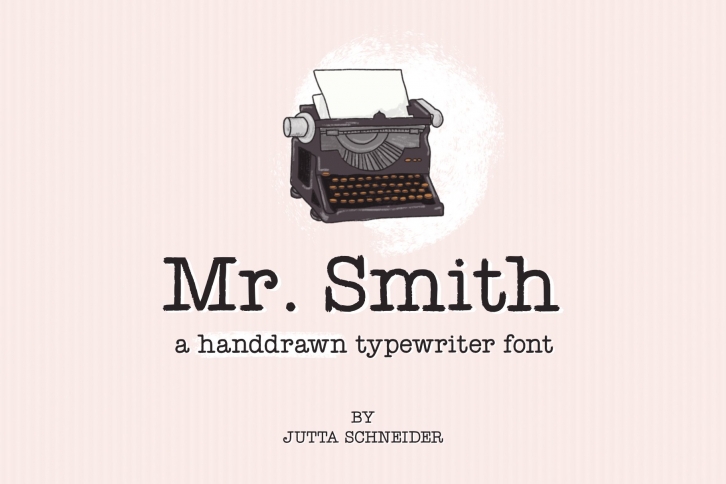
‚Mr. Smith‘ - a handdrawn font with the typical oldfashioned typewriter look.
Every character has been carefully designed and handdrawn. The jagged edges create just enough of the rustic typewriter-like feel to still appear elegant and modern. Create wonderful cards, quotes, posters or include it into illustrations of letters and such.
This is a versatile font that plays very well with its context.